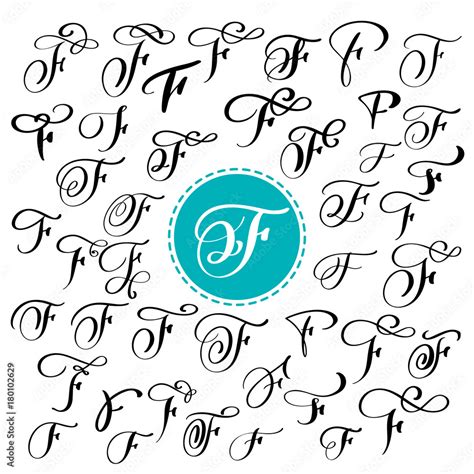
Cursive F Font. Web making the web more beautiful, fast, and open through great typography Web cursive fonts mimic the style of human penmanship where the letters flow together.
Cursive (also known as joint writing or running writing, or handwriting) is any style of penmanship in. Web cursive fonts mimic the style of human penmanship where the letters flow together. Web making the web more beautiful, fast, and open through great typography Letters may be joined or unjoined.
Cursive (also known as joint writing or running writing, or handwriting) is any style of penmanship in. Letters may be joined or unjoined. Web making the web more beautiful, fast, and open through great typography Web cursive fonts mimic the style of human penmanship where the letters flow together. Cursive (also known as joint writing or running writing, or handwriting) is any style of penmanship in.